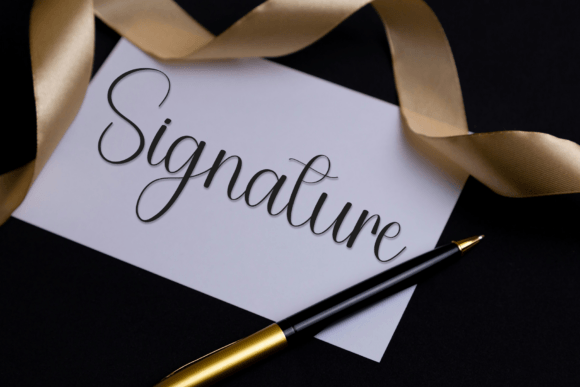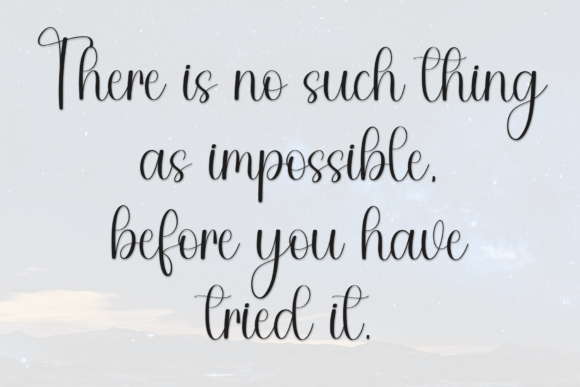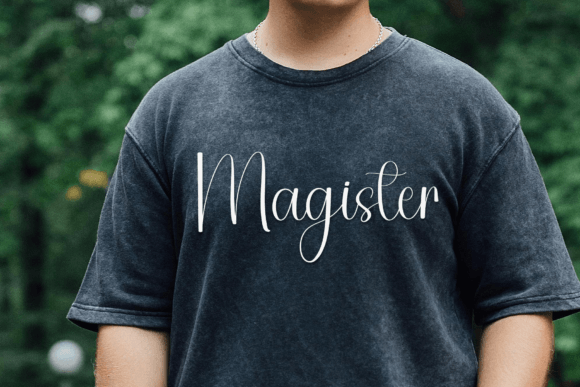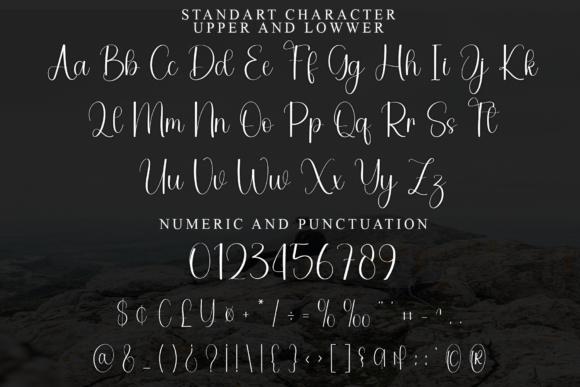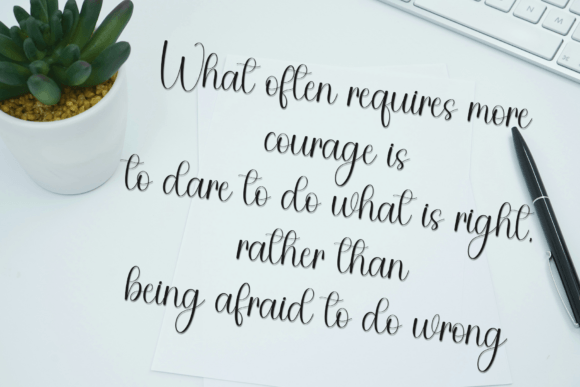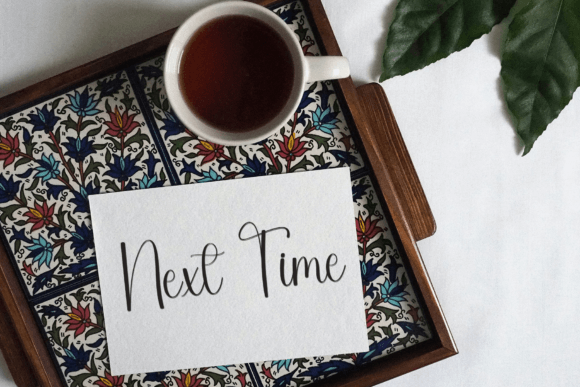
Meet Captain Font: The Ultimate Casual and Creative Companion for Designers and Crafters
Are you tired of using the same old fonts for your personal projects, invitations, and social media graphics? Look no further than Captain Font, a casual and creative typeface that exudes warmth and friendliness. Its round, playful strokes create a relaxed and approachable feel that’s perfect for designers and crafters who want to add a personal touch to their work.
The Charm of Captain Font
Captain Font’s charming, hand-drawn aesthetic is what sets it apart from other fonts. Its unique and fun design adds a touch of personality to any project, making it ideal for those who want to create something that stands out from the crowd. Whether you’re designing a birthday invitation, a social media graphic, or a personal blog, Captain Font is the perfect choice.
Key Features of Captain Font
- Casual and Creative: Captain Font is designed to be casual and creative, making it perfect for personal projects and social media graphics.
- Warm and Friendly: The font’s round, playful strokes create a warm and friendly feel that’s approachable and inviting.
- Hand-Drawn Aesthetic: The font’s charming, hand-drawn design adds a fun and unique touch to any project.
Captain Font is perfect for designers and crafters who want to add a personal touch to their work. Its unique design makes it ideal for a variety of projects, including:
- Personal invitations (birthday, wedding, graduation, etc.)
- Social media graphics (Facebook, Instagram, Twitter, etc.)
- Personal blogs and websites
- Crafting projects (DIY, scrapbooking, etc.)
- Graphic design projects (brochures, flyers, etc.)
Why Choose Captain Font?
There are many reasons why Captain Font is the perfect choice for designers and crafters. Here are just a few:
- Easy to Read: Captain Font is clear and easy to read, making it perfect for body text and headings.
- Versatile: The font is versatile and can be used for a variety of projects, from personal to commercial.
- Unique: Captain Font’s unique design makes it stand out from other fonts, ensuring that your project will be noticed.
Tips for Using Captain Font
Here are some tips for using Captain Font in your projects:
- Pair with Other Fonts: Captain Font pairs well with other fonts, so feel free to experiment with different combinations.
- Use for Headings and Body Text: The font is clear and easy to read, making it perfect for both headings and body text.
- Add a Personal Touch: Use Captain Font to add a personal touch to your project, whether it’s a personal invitation or a social media graphic.
Captain Font is a casual and creative typeface that’s perfect for designers and crafters who want to add a personal touch to their work. Its unique, hand-drawn aesthetic and warm, friendly feel make it ideal for a variety of projects, from personal invitations to social media graphics. With its PUA Encoded glyphs and compatibility with various application engines, Captain Font is easy to use and versatile. So why not give Captain Font a try and see how it can elevate your designs?